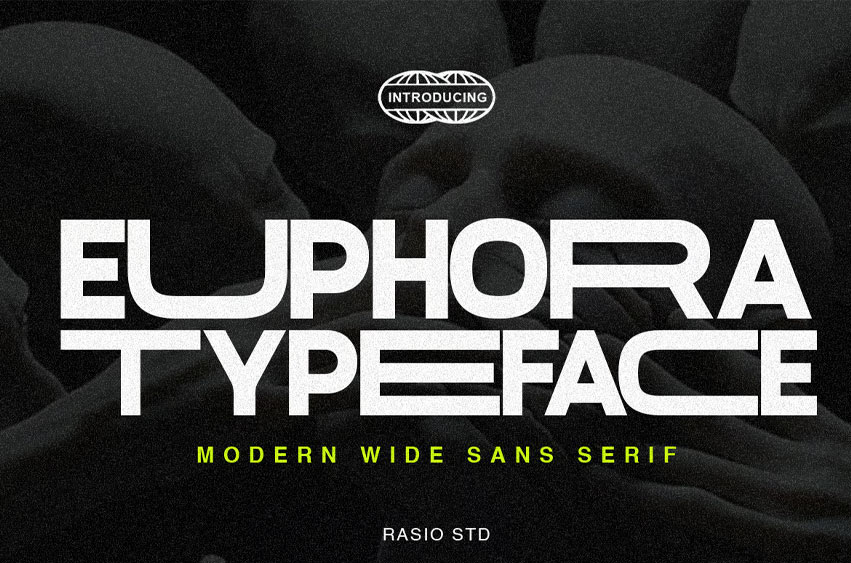
Euphora Font Modern Wide Sans Font is a bold sans-serif typeface with an extended wide design, giving every letter a strong and futuristic presence. Its geometric structure and sharp lines create a striking modern look, perfect for titles, posters, logos, and digital projects. The font includes uppercase, lowercase, numbers, and punctuation, offering versatility for both print and screen use. With its wide spacing and powerful forms, Euphora delivers clarity, confidence, and impact in modern typography.
Relevance and Use Cases is perfect for bold headlines, tech branding, modern posters, digital interfaces, futuristic design projects, sports typography, editorial layouts, and impactful logo designs that need strong and extended sans serif styling.